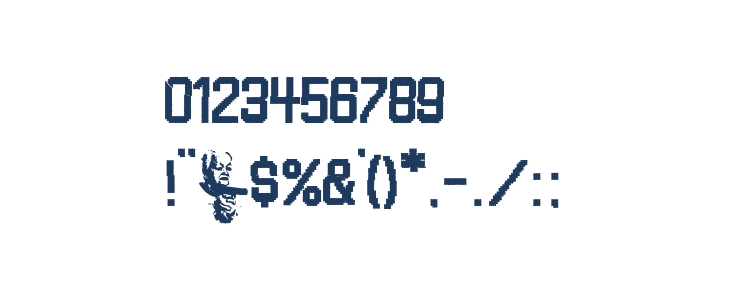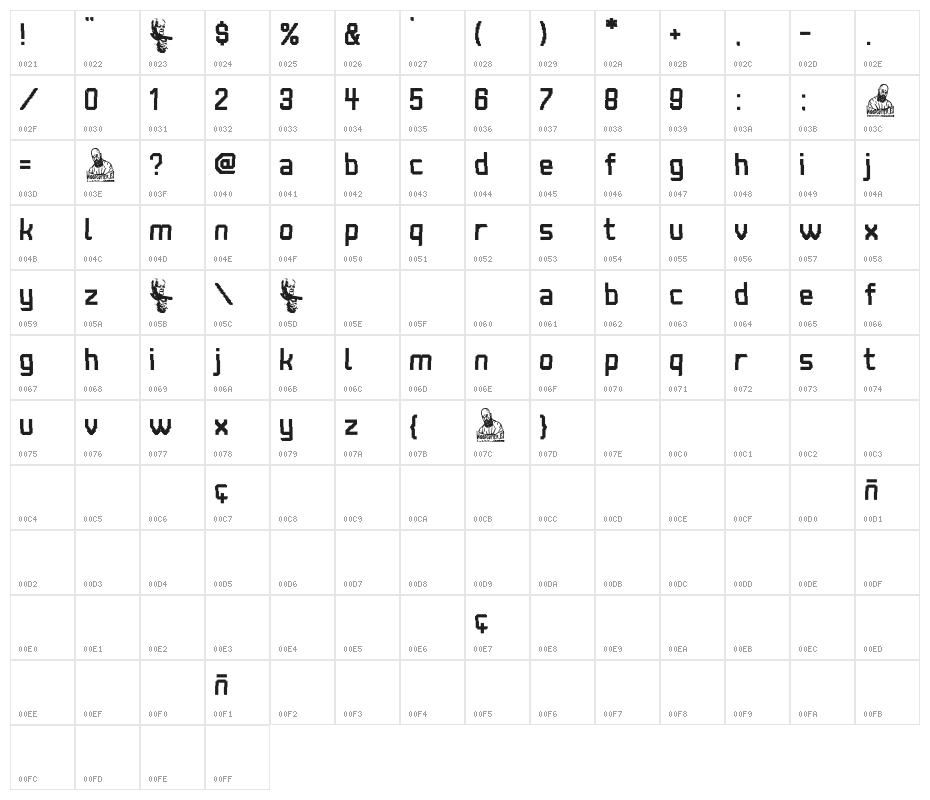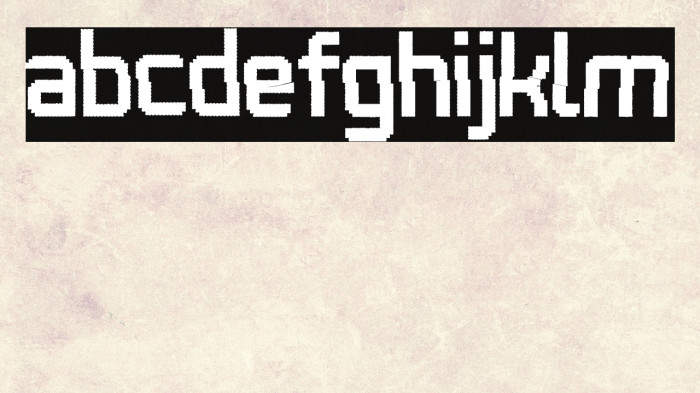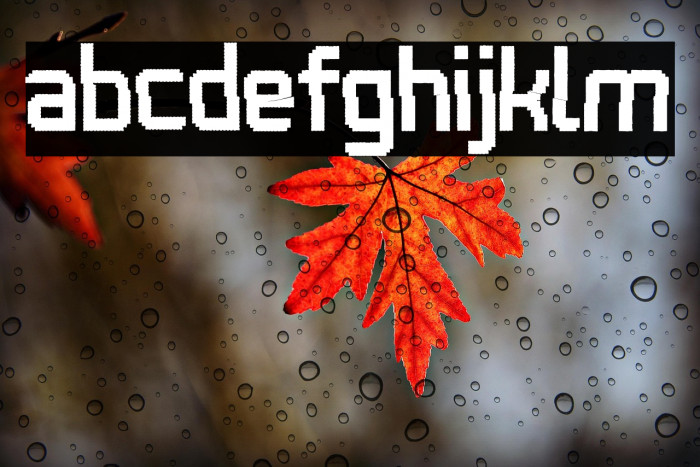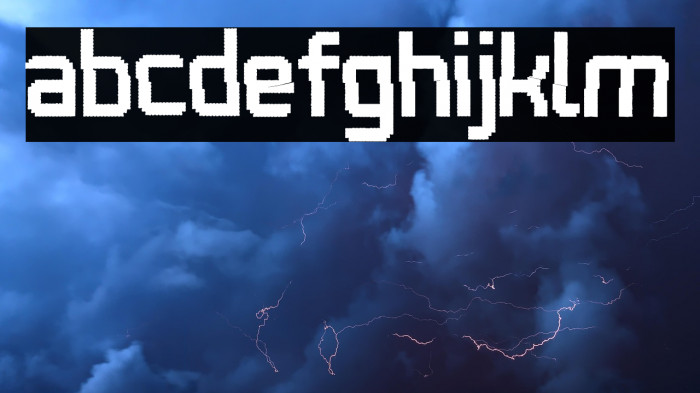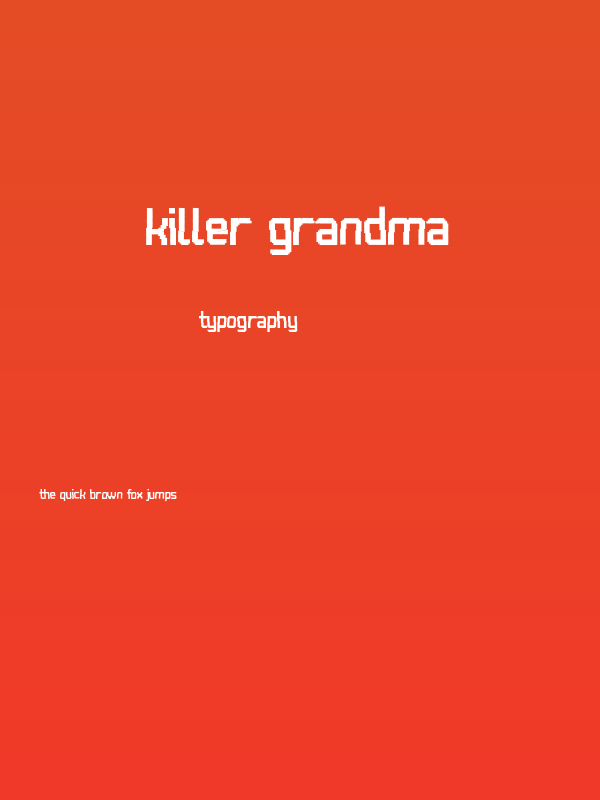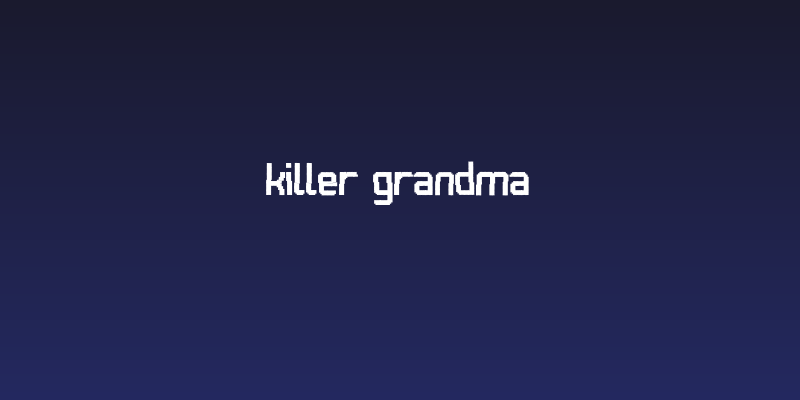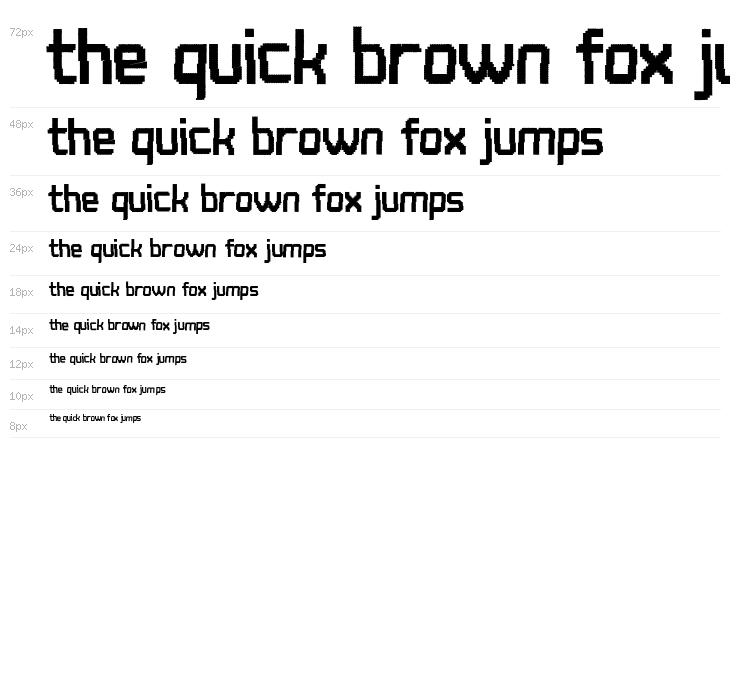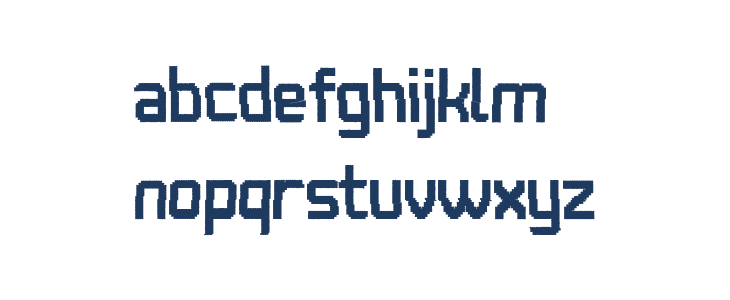
Killer Grandma Font
Killer Grandma Description
This font features a bold and blocky design with a pixelated aesthetic, reminiscent of early digital displays or retro video games. The characters are uniformly structured, with a consistent height and width, giving it a monospaced appearance. The edges are sharply defined, enhancing its digital look. The uppercase and lowercase letters maintain a uniform style, while the numerals and special characters complement the overall theme. This font's unique style makes it stand out, particularly in designs that aim to evoke nostalgia or a tech-inspired feel.
| Overall Style | Retro, Digital |
| Use Case | Headlines, Logos, Digital displays |
| Proposed Projects | Ideal for video game design, tech-themed posters, retro websites, and digital art projects. |